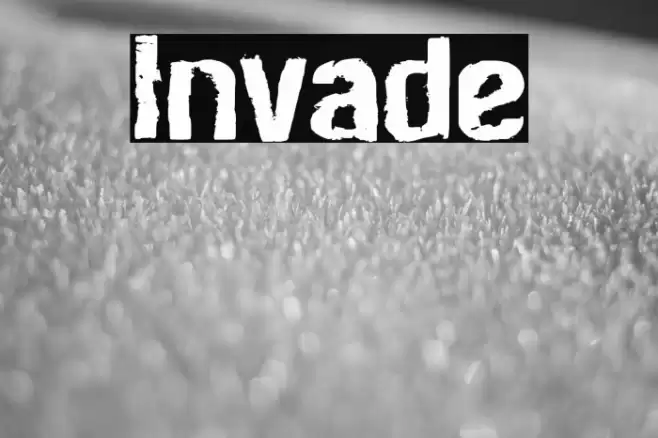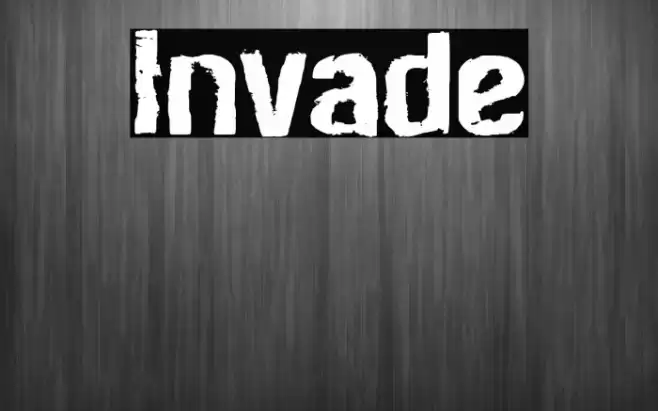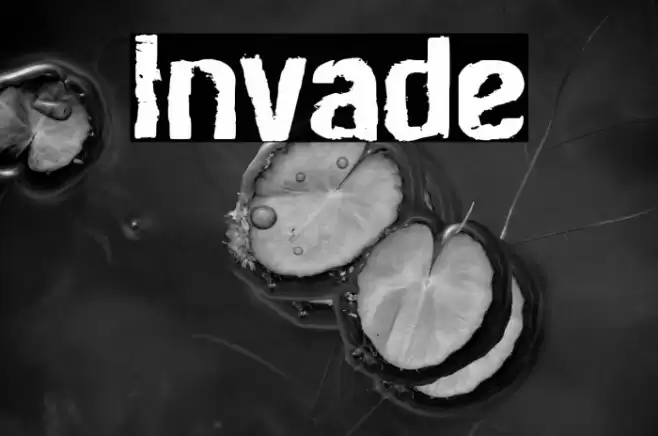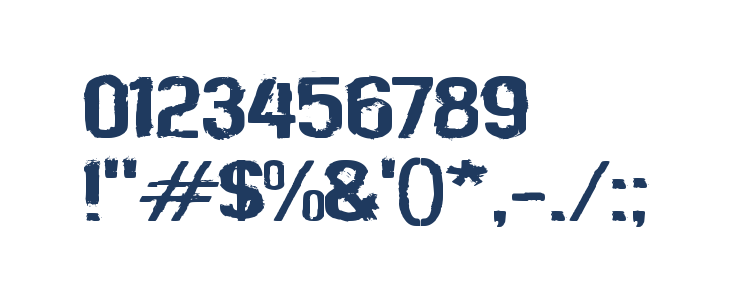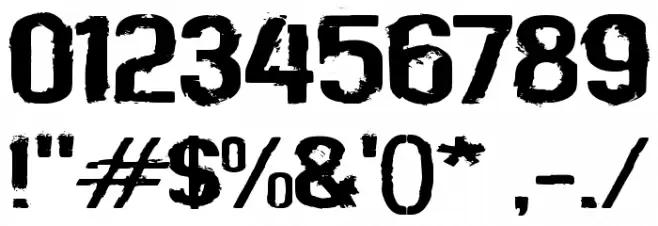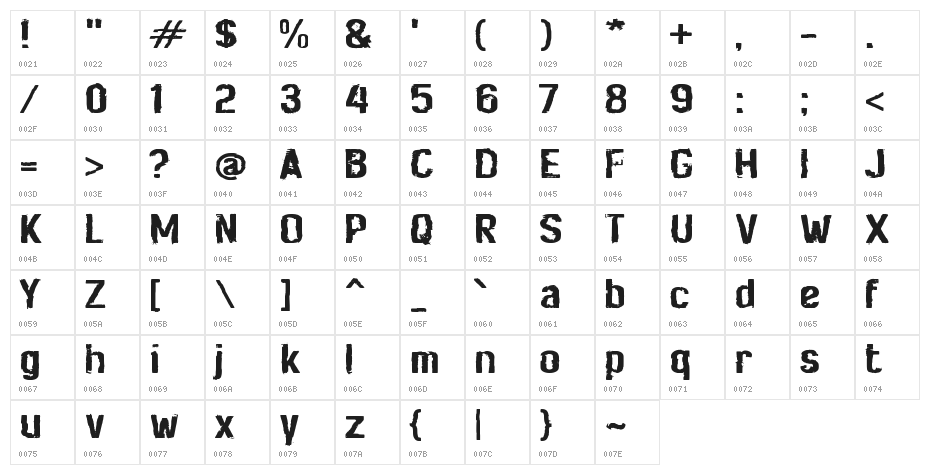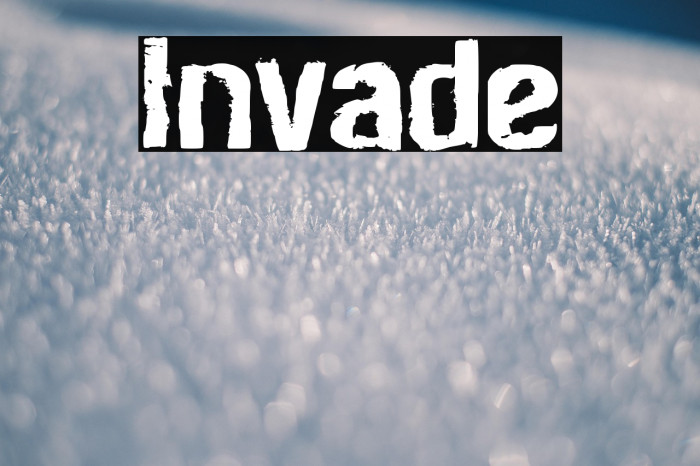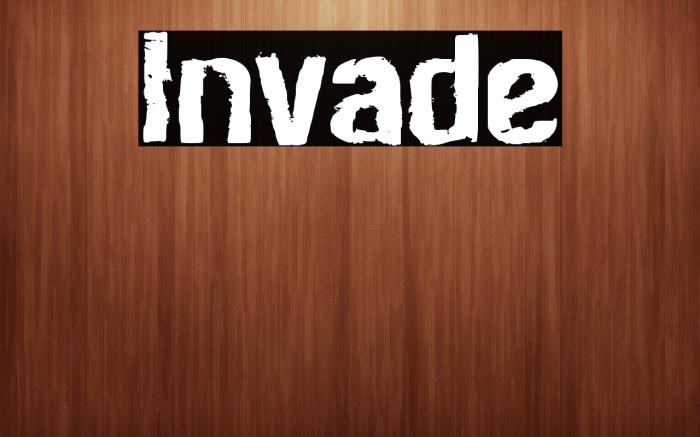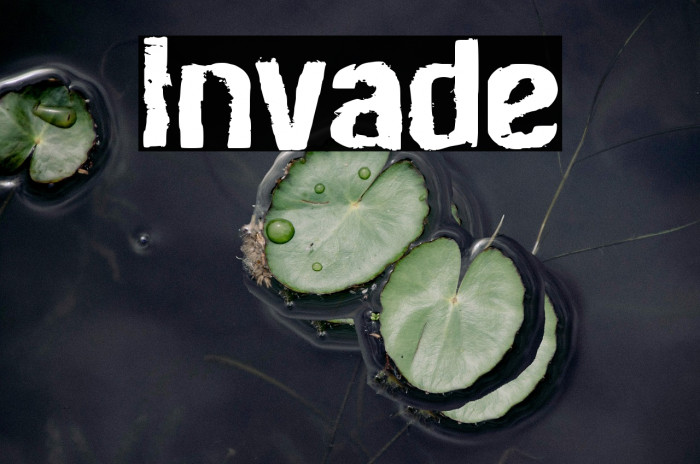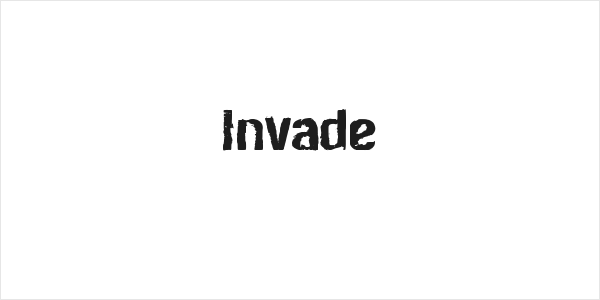
Invade Font
Invade Description
This font features a rugged, distressed appearance with a bold and impactful design. The characters have a rough, textured edge that gives them a worn, grunge-like aesthetic. The uppercase and lowercase letters maintain a consistent style, with a strong emphasis on boldness and a slightly condensed form. The numerals and special characters follow the same distressed theme, adding to the overall cohesive look. This font is ideal for projects that require a gritty, urban feel, such as music posters, edgy branding, or streetwear designs.
A bold, distressed font with a rugged, grunge aesthetic from Uncategorized fonts.
- Proposed Projects: Music posters, edgy branding, streetwear designs, urban-themed graphics.
- Overall Style: Grunge, Urban, Distressed